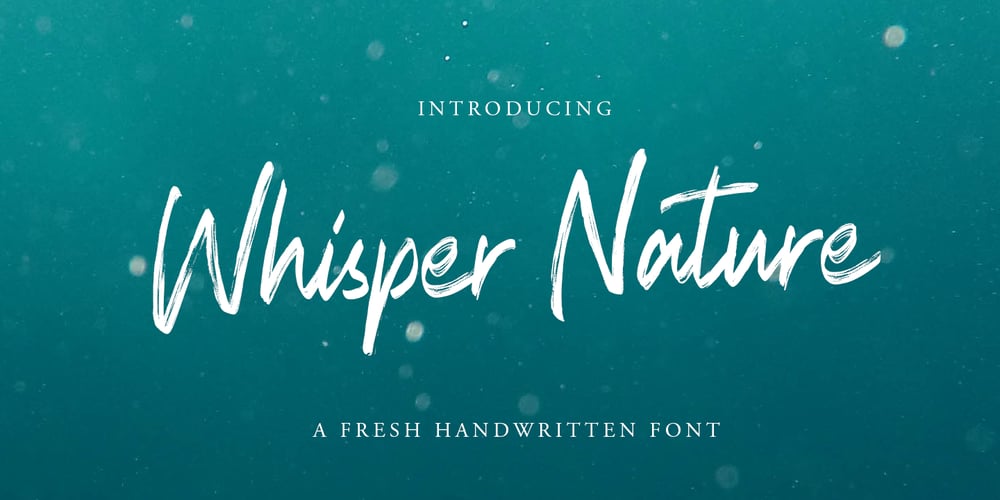
Whisper Nature Font Family was designed by Asep Rendi and published by Arendxstudio. Whisper Nature contains 1 styles and family package options. Whisper Nature is a beautiful handpainted font, organic, fun, with a mixture of lowercase and capital letters that makes it very interesting and unique. It’s perfect for branding projects, logos, wedding designs, media posts, advertisements, product packaging, product designs, labels, photography, watermarks, invitations, stationery, and any project that need a handwritten touch. Features : Character Set A-Z Numerals & Punctuations (OpenType Standard) Accents (Multilingual characters) Ligatures There it is! I really hope you enjoy it – comments & likes are always welcome and accepted. More importantly, don’t hesitate to send a message if you have a problem or question.